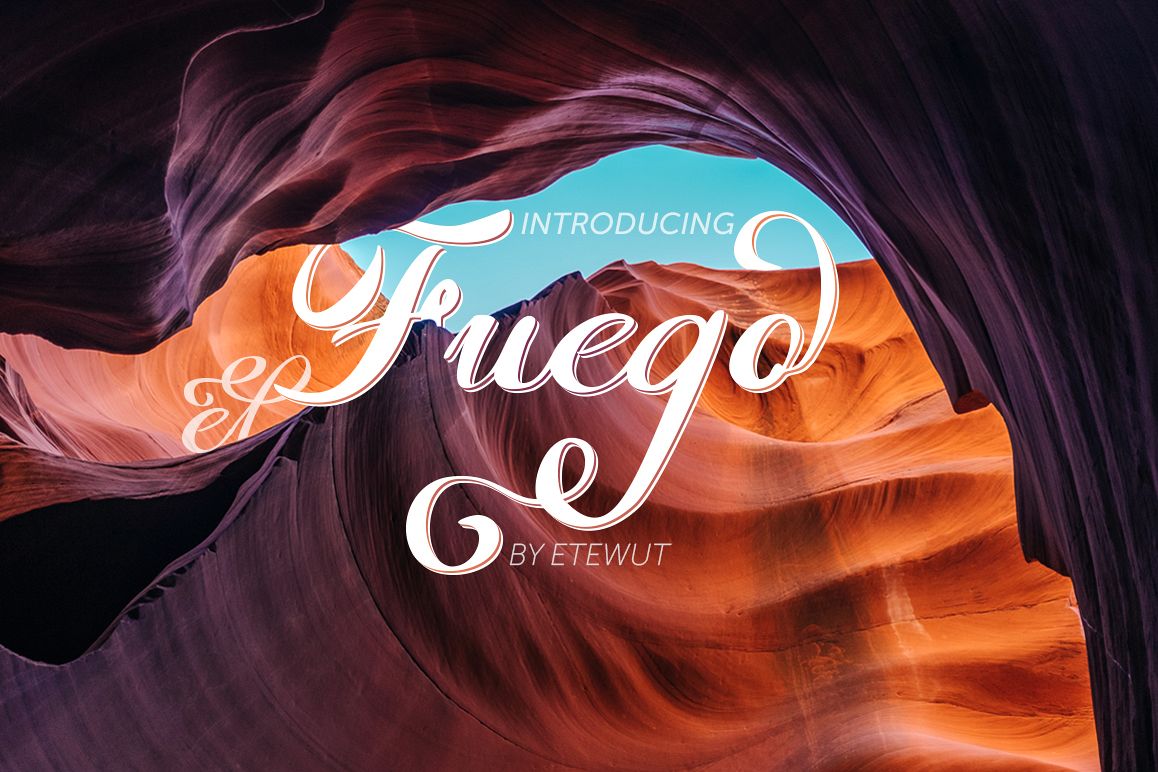
FUEGO
Introducing new handwritten script el FUEGO! It has a large variety of alternate characters, allowing you to make each word look completely unique to the next!
• different initial swashes
• lot of final swashes
• alternative symbols
el FUEGO is suitable use for market design developed at this time, this font has a model Trendy, natural and gentle, with this font you can take advantage of the opportunity in every moment of one wonderful way to highlight the celebration of the feast of your best, because this font will be advocates for purposes such as wedding invitations, party, graduation, birthday, gathering, etc.I hope you enjoy using my font.